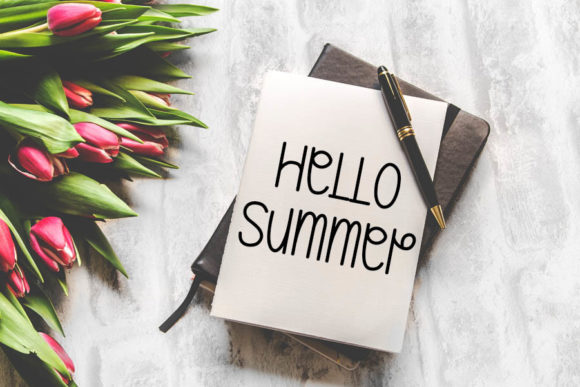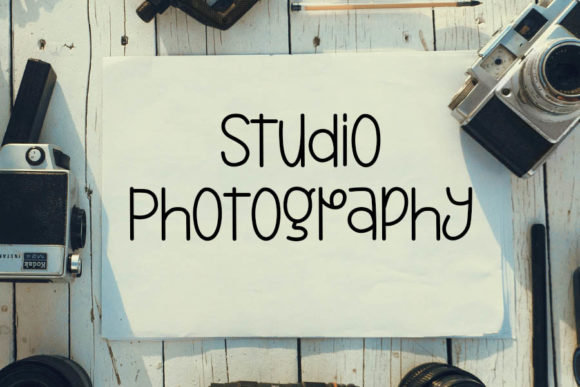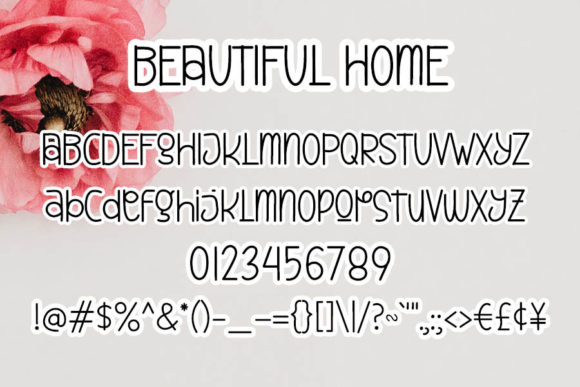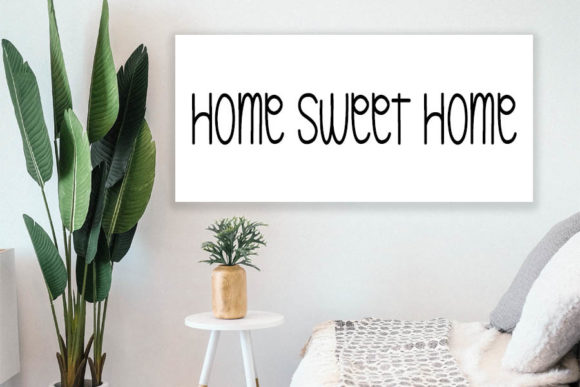
Introduction to Beautiful Home Font
Beautiful Home is a cute and simple handwritten font.
It looks adaptable and sweet on a variety of design ideas so add it confidently and make your creations look outstanding .
Key Features of Beautiful Home Font